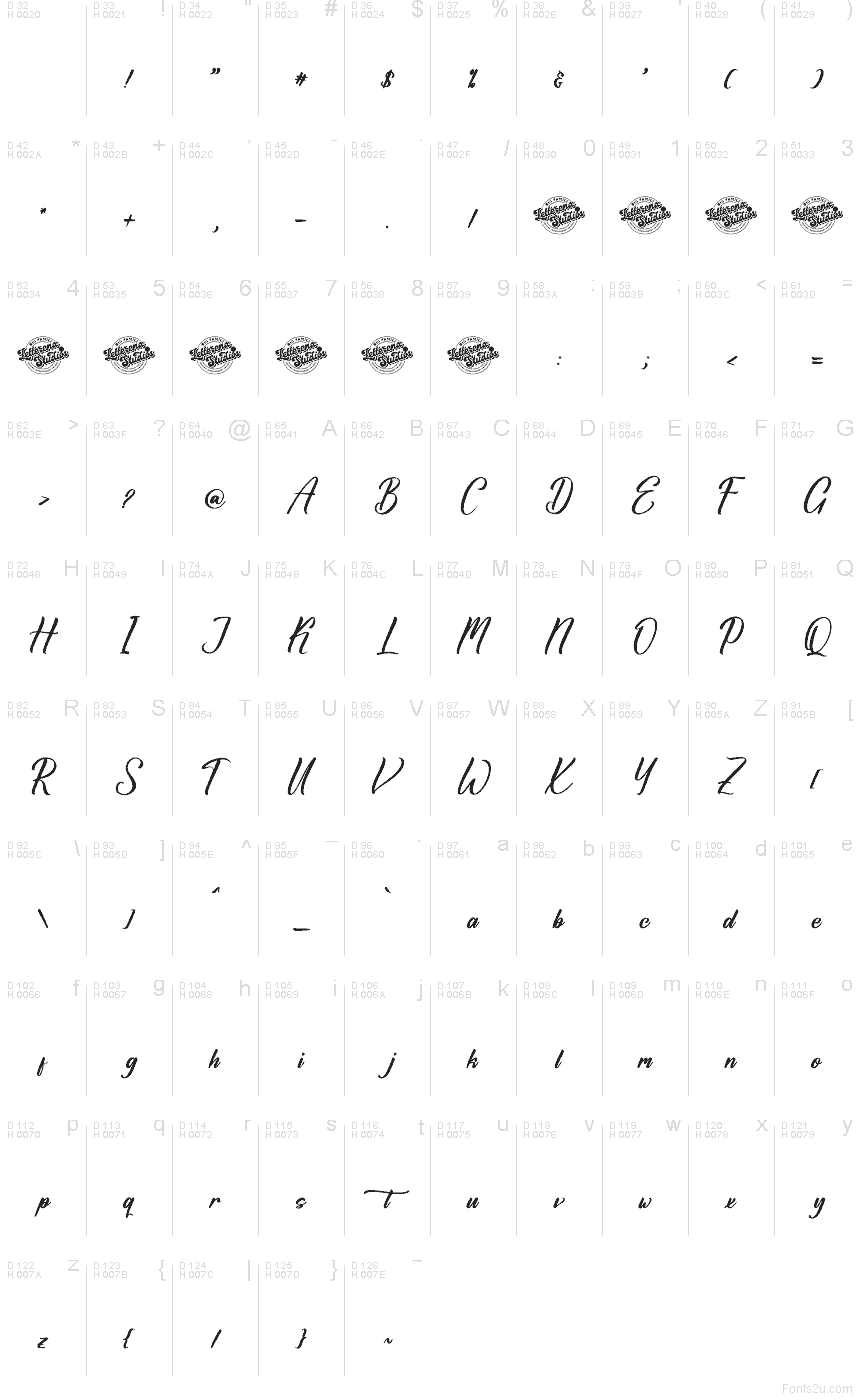
Roisthand Qabrilon DEMO VERSION
Roisthand Qabrilon font by Letterena Studios is a free handwritten script typeface with a lush, inky flow and confident curves. Its sweeping entrances, tight rhythm, and slightly textured strokes feel like fast, assured penwork on smooth paper, giving designs a polished yet personal touch. Letters link together in an easy, natural motion, creating wordmarks that look custom-made rather than typed.
Using Roisthand Qabrilon, you can bring refined personality to wedding invitations, save-the-dates, boutique branding, product packaging, social media quotes, logos, and signage. This free font shines when used large, letting those long, looping connections breathe. Pair it with a clean geometric sans for supporting text to keep layouts balanced and effortlessly stylish.